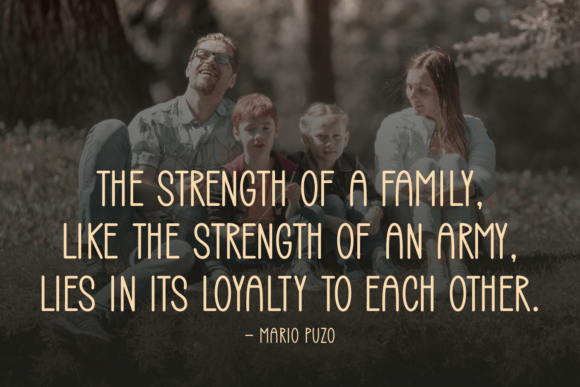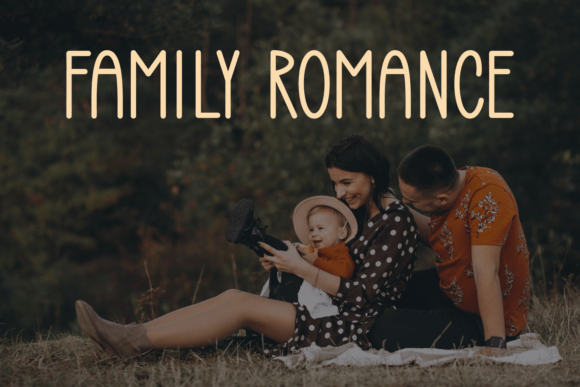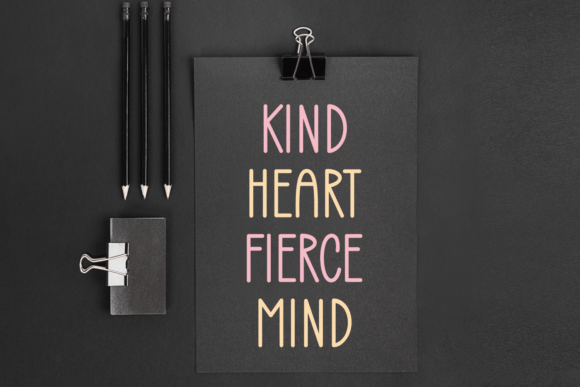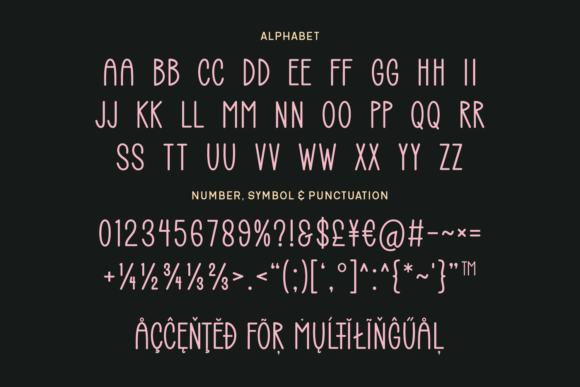
Introduction to Modern Limited Font
As a designer, have you ever found yourself staring at a blank canvas, trying to conjure up the perfect idea for a creative project? The pressure to create something unique and captivating can be overwhelming, but what if you had the right tool to bring your vision to life? Enter the Modern Limited Font, a tall minimalist sans serif font that’s about to become your new go-to design resource.
With its sleek and modern aesthetic, the Modern Limited Font is perfect for creating a minimalist look that’s both high quality and visually appealing. Whether you’re working on a poster, film, logo, or web design project, this font is sure to make your work stand out. And the best part? It’s available for free download, making it a valuable asset for designers on a budget.
So why is the Modern Limited Font so valuable for designers? For one, it offers a level of versatility that’s hard to find in other fonts. From its transparent background to its clean lines, this font is the perfect canvas for your creative ideas. And with its free download option, you can experiment with it risk-free and see how it elevates your design projects.
Key Features of Modern Limited Font
- High quality design: The Modern Limited Font is designed with precision and care, ensuring a crisp and clear visual experience.
- Transparent background: This versatile font features a transparent background, making it ideal for use on various design resources, including web pages and digital graphics.
- High resolution: The Modern Limited Font is designed at a high resolution of 300 DPI, ensuring that it looks great on both small and large scales.
- Unique design: The Modern Limited Font features a unique blend of modern and limited design elements, making it stand out from other fonts in its class.
- Perfect for digital design: The Modern Limited Font is specifically designed for use in digital design projects, including web design, graphic design, and UI/UX design.
Honest Review: Modern Limited Font
As a designer, I’m always on the lookout for high-quality design resources that can elevate my creative projects. Recently, I stumbled upon the Modern Limited Font, and I’m excited to share my honest review with you.
- Clean and modern aesthetic: The font has a sleek, minimalist design that’s perfect for contemporary projects.
- Transparent background: This feature allows for seamless integration with various design elements, making it a great design resource.
- High-quality glyphs: The font includes a wide range of glyphs, ensuring that you’ll find the perfect character for your project.
- Limited language support: Unfortunately, the font only supports a limited range of languages, which might be a drawback for designers working on international projects.
- No bold or italic styles: While the font looks great in its standard form, it would be great to have bold and italic styles for added versatility.
Overall, I’m impressed with the Modern Limited Font, and I think it’s a great addition to any designer’s toolkit. While it has some limitations, its clean design and transparent background make it a valuable design resource for creative projects.
Introduction to Modern Limited Font
The Modern Limited Font is a high-quality design resource ideal for creative projects. This versatile font features a transparent background, making it perfect for various design applications.
Tips for Getting the Most Out of Modern Limited Font
For optimal results, use the Modern Limited Font on a high-quality design project with a transparent background. Experiment with different font sizes and styles to achieve the desired look.